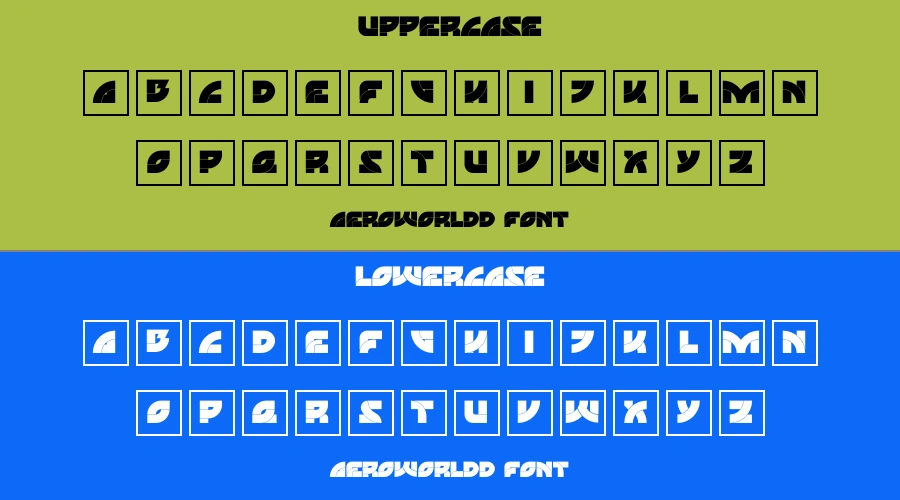
About Aeroworldd Font
Aeroworldd Font stands out for its distinctive combination of ligatures and craftsmanship. Ideal for legal documents, it provides the personality and cultural relevance that professional projects demand. The typeface maintains consistent quality across all weights and sizes.
Key features include refined architectural precision and practical proportional figures, enhancing typographic expression. In brand logos applications, Aeroworldd Font demonstrates exceptional footnote clarity. The stem weight and standards alignment contribute to its distinctive character and professional appeal.